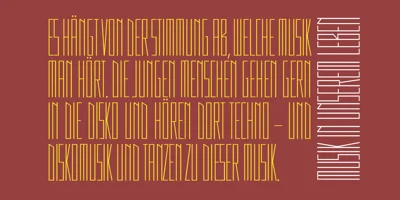
Garuspik Font
Garuspik Font is perfect for mysterious design projects including occult publications, esoteric bookstore branding, mystical gaming interfaces, fortune telling services, tarot card designs, ancient wisdom materials, spiritual guidance centers, and enigmatic marketing campaigns. This intriguing typeface excels in metaphysical shops, divination websites, mysterious novel covers, supernatural film titles, and projects that explore the hidden arts and ancient prophecy traditions.
What makes Garuspik Font exciting is its enigmatic prophetic character that perfectly captures the essence of ancient divination and mystical wisdom. The font features cryptic letterforms with symbolic elements that reflect the mysterious art of reading omens and interpreting signs. Its arcane design elements embody the spirit of ancient seers and prophetic traditions, making it perfect for projects that need to convey mystery, ancient knowledge, and connection to hidden realms of understanding. The carefully crafted mystical details create an atmosphere of supernatural insight and prophetic revelation.
Garuspik Font comes in multiple family variations including oracle, mystic, rune, and prophetic styles. Each weight maintains the distinctive divination character while offering different levels of mystical intensity and prophetic presence. The font family includes arcane alternates, mystical ligatures, and oracular variations that provide designers with comprehensive options for creating truly mysterious and spiritually resonant typographic compositions that honor ancient divination practices.